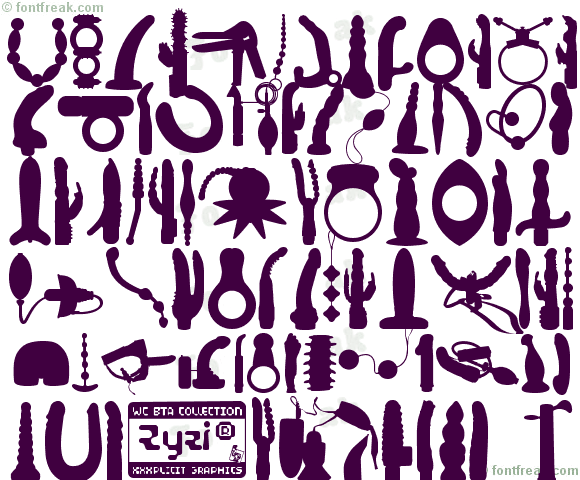
WC Zyzi Bta
The WC Zyzi Bta font, designed by Christophe Féray, is a striking decorative typeface that stands out for its unique visual flair. This freeware font features a series of playful, whimsical shapes that resemble stylized objects, making it a perfect choice for projects that require a bold and creative touch. The design showcases a consistent stroke weight with a smooth, flowing appearance, and the spacing between characters is thoughtfully crafted to maintain readability while allowing the decorative elements to shine.
The WC Zyzi Bta font is particularly well-suited for a variety of specific use cases. It can add an eye-catching element to wedding invitations, where its artistic flair can complement romantic themes. Additionally, it is ideal for movie posters, especially for films that embrace a quirky or avant-garde aesthetic. Restaurant menus can also benefit from this font, providing a unique visual identity that sets the dining experience apart. Furthermore, it can be effectively used in branding materials for creative businesses, such as art studios or boutiques, where capturing attention is key.
The target audience for the WC Zyzi Bta font includes graphic designers looking for distinctive typography to elevate their projects, small business owners seeking to establish a memorable brand identity, and content creators who wish to infuse their work with a sense of creativity and fun.
What makes the WC Zyzi Bta font truly stand out is its ability to blend artistic expression with functionality. Its playful yet polished design ensures that it can be used in a variety of contexts without compromising on style. For those searching for a unique typeface, the WC Zyzi Bta font free download is an excellent choice that will enhance any creative project.